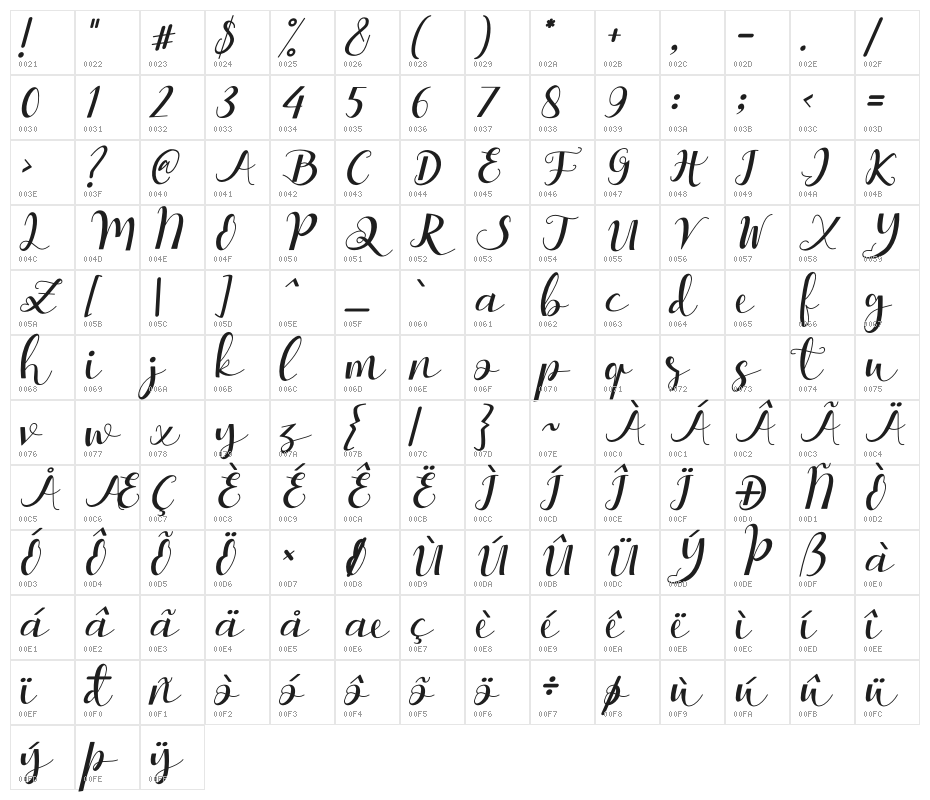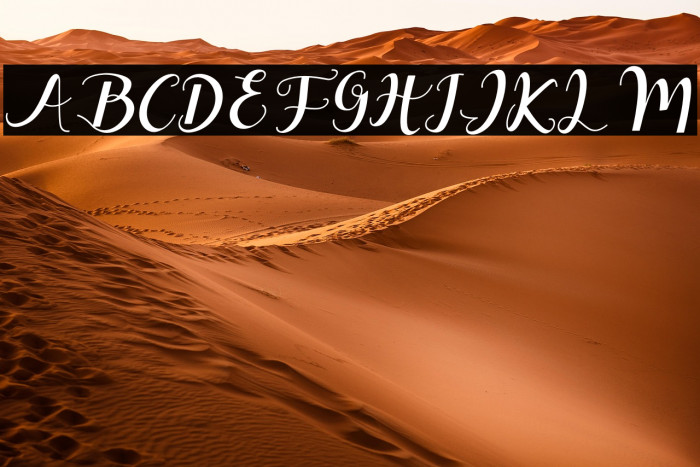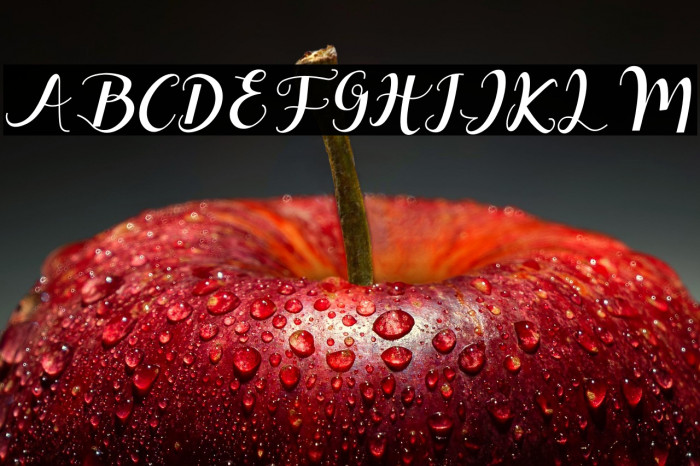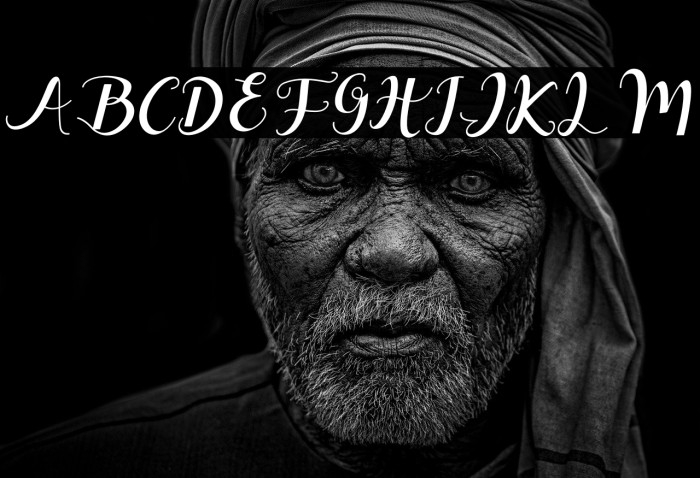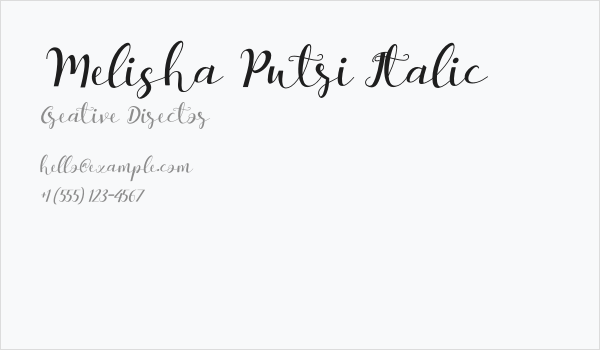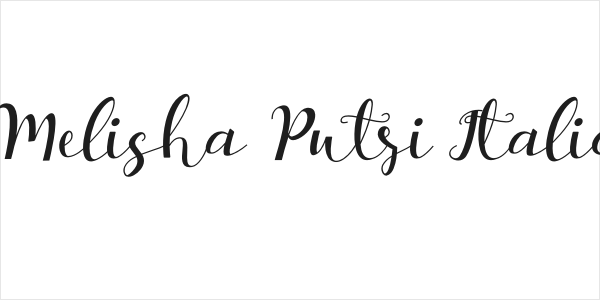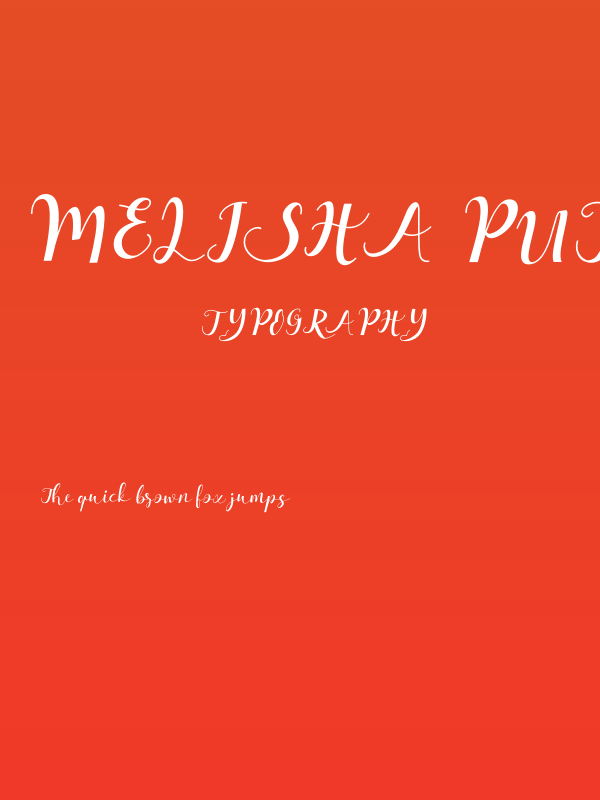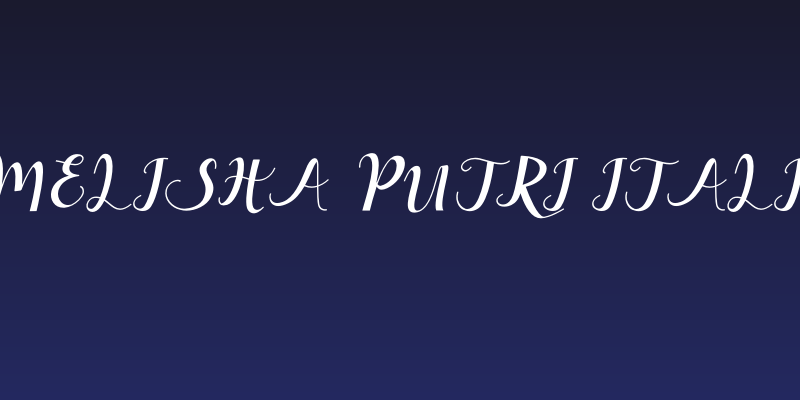
Melisha Putri Italic Font
Melisha Putri Italic Description
This elegant script font features a flowing, cursive style with a modern twist. The uppercase letters are characterized by graceful loops and swirls, while the lowercase letters maintain a smooth, connected appearance. The numerals are stylish and complement the overall script design. Special characters are crafted with the same attention to detail, ensuring consistency throughout. The font's italic nature enhances its fluidity, making it ideal for projects that require a touch of sophistication and elegance.